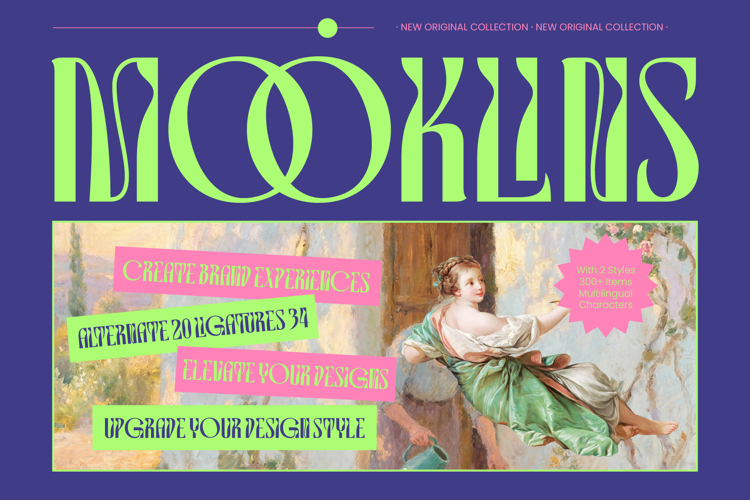
Mooklins - Decorative Display Font
Elevate your creative vision with a typeface that embodies artistic fluidness and modern elegance. Mooklins - Decorative Display Font is a masterpiece of contemporary typography, blending high-contrast strokes with organic, flowing forms. This decorative display font captures a unique psychedelic aesthetic while maintaining a sense of luxury and sophistication. It is designed to command attention and transform standard layouts into bold visual statements.
Experience unparalleled creative flexibility with a toolkit built for the modern designer. Featuring over 34 unique ligatures and 20 stylistic alternates, Mooklins - Decorative Display Font offers endless possibilities for customization. With its extensive multilingual support, Mooklins - Decorative Display Font adapts seamlessly across global markets, making it incredibly versatile for international projects. This comprehensive character set ensures that your message remains consistent and impactful across borders.